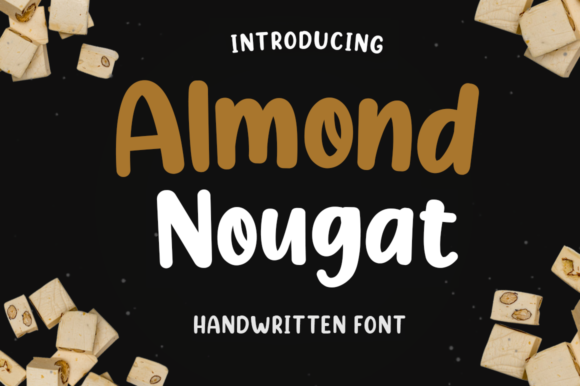
Introducing Almond Nougat Font: The Cute and Friendly Handwritten Font That Brings Your Designs to Life
Are you tired of using the same old fonts in your designs? Do you want to add a touch of personality and whimsy to your projects? Look no further than Almond Nougat Font, a charming and friendly handwritten font that’s sure to make your designs come alive. In this article, we’ll take a closer look at Almond Nougat Font, its features, and how you can use it to elevate your designs.
What is Almond Nougat Font?
Almond Nougat Font is a beautiful, handcrafted font that’s perfect for adding a personal touch to your designs. This chunky lettered font is designed to be cute and friendly, making it ideal for projects that require a playful and approachable feel. Whether you’re working on a branding project, a children’s book, or a social media graphic, Almond Nougat Font is sure to bring a smile to your audience’s face.
Features of Almond Nougat Font
So, what makes Almond Nougat Font so special? Here are just a few of its standout features:
- Handwritten charm: Almond Nougat Font is a truly handmade font, with each letter carefully crafted to give it a unique, personal feel.
- Chunky letters: The font features chunky, bold letters that are perfect for making a statement.
- Cute and friendly: The overall feel of Almond Nougat Font is cute and friendly, making it perfect for projects that require a playful touch.
- Easy to read: Despite its chunky letters, Almond Nougat Font is surprisingly easy to read, making it perfect for use in body text or headings.
How to Use Almond Nougat Font in Your Designs
Now that we’ve covered the basics of Almond Nougat Font, let’s take a look at how you can use it in your designs. Here are a few ideas to get you started:
- Branding projects: Almond Nougat Font is perfect for branding projects that require a playful, approachable feel. Use it for logos, business cards, or packaging design.
- Children’s books: The font’s cute and friendly feel makes it ideal for children’s books, educational materials, or activity sheets.
- Social media graphics: Add a touch of personality to your social media graphics with Almond Nougat Font. Use it for Facebook posts, Instagram stories, or Twitter headers.
- Invitations and party decor: The font’s playful feel makes it perfect for invitations, party decor, or other celebratory materials.
Tips for Getting the Most Out of Almond Nougat Font
Here are a few tips for getting the most out of Almond Nougat Font:
- Experiment with colors: Almond Nougat Font looks great in a variety of colors, so don’t be afraid to experiment and find the perfect hue for your design.
- Mix and match: Try pairing Almond Nougat Font with other fonts to create a unique and interesting look.
- Use it sparingly: While Almond Nougat Font is cute and friendly, it can be overwhelming if used too much. Use it sparingly to create a focal point in your design.
In conclusion, Almond Nougat Font is a charming and friendly handwritten font that’s perfect for adding a personal touch to your designs. With its chunky letters, cute and friendly feel, and ease of use, it’s an ideal choice for a wide range of projects. Whether you’re a designer, a DIY enthusiast, or just someone who loves to create, Almond Nougat Font is sure to bring a smile to your face and make your designs come alive.
- Q: Is Almond Nougat Font easy to read?
A: Yes, despite its chunky letters, Almond Nougat Font is surprisingly easy to read.